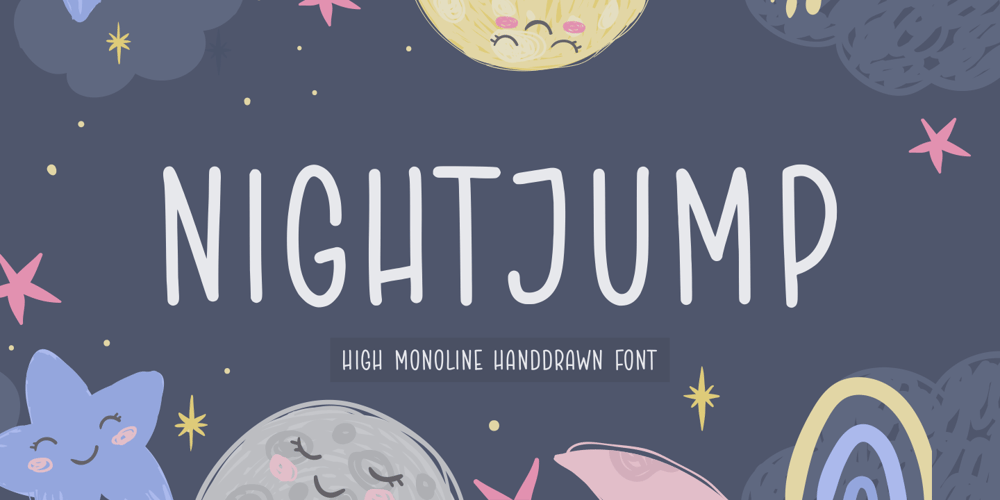
Nightjump Font Family was designed by Restu Angga and published by Balpirick. Nightjump contains 1 styles and family package options. NIGHTJUMP is a High Monoline Hand drawn Font.Night Jump is a handwritten font with a casual look. It is perfect for product packaging, branding project, magazine, social media, wedding, or just used to express words above the background.NIGHTJUMP also multilingual support.Enjoy the font, feel free to comment or feedback, send me PM or email.